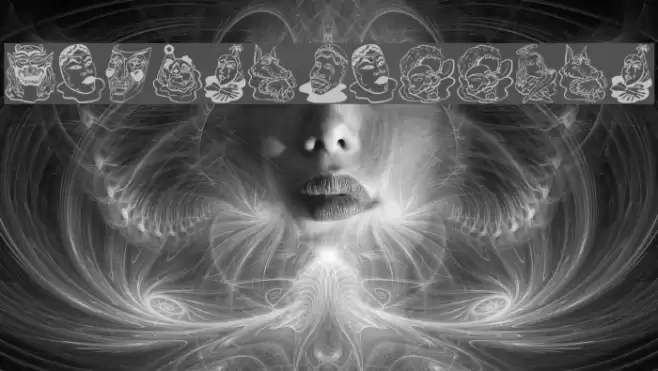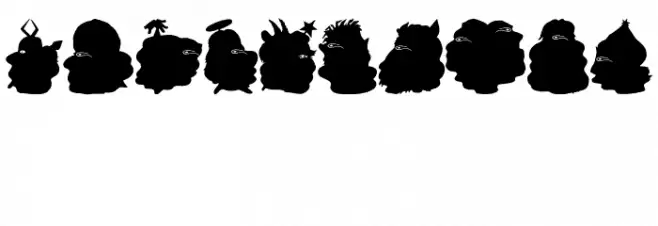
MaskenballOne Font
MaskenballOne Description
Highly decorative and illustrative font featuring unique, hand-drawn mask and face illustrations for each character, with intricate line work and playful, theatrical expressions. Each glyph is a distinct, detailed drawing rather than a traditional letterform.
A whimsical, mask-themed decorative font with hand-drawn illustrations from Uncategorized fonts.
- Proposed Projects: Posters, party invitations, Halloween or carnival event branding, book covers, artistic projects, themed merchandise.
- Overall Style: Decorative, Whimsical, Theatrical
- Use Case: Logos, Headlines, Posters, Themed Graphics